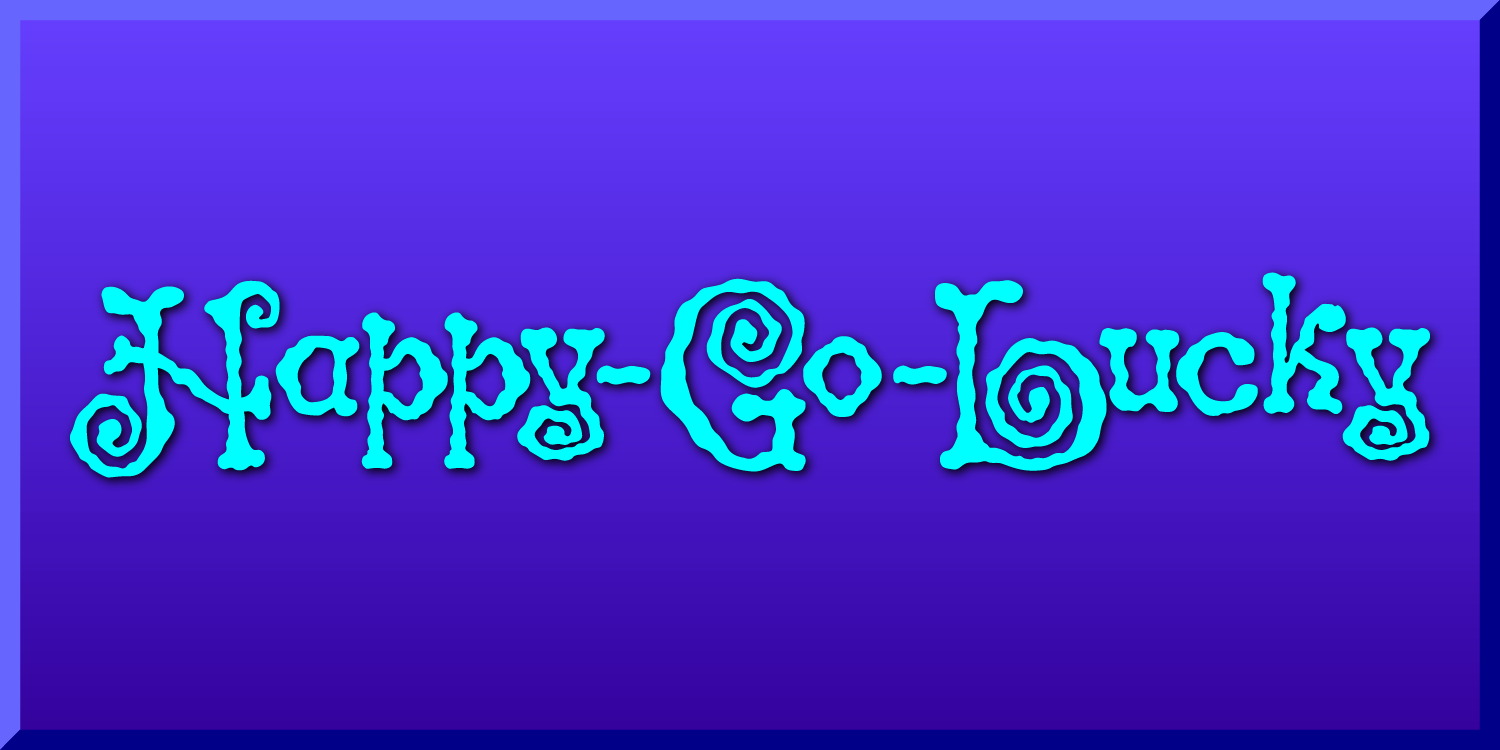
The Happy Go Lucky Font is incredibly versatile and perfect for infusing a sense of joy and playfulness into your designs. Imagine it bringing a vibrant energy to children's book illustrations, making birthday invitations pop, or adding a friendly touch to educational materials. It's also fantastic for creating cheerful social media graphics, engaging YouTube thumbnails, quirky product packaging, and delightful apparel designs. This font truly shines in any project aiming to evoke fun, creativity, and a lighthearted spirit, from craft projects to branding for whimsical businesses.
What makes Happy Go Lucky Font so exciting is its undeniable charm and optimistic vibe. It instantly communicates warmth and accessibility, making your content feel inviting and approachable. The rounded edges and bouncy feel give it a unique character that's both endearing and highly readable. It has a way of making text feel less like mere words and more like an expression of pure delight. This isn't just a font; it's a mood enhancer for your designs, ensuring they stand out with a cheerful and memorable personality.
The Happy Go Lucky Font family typically offers a range of styles to give you maximum creative freedom. While specific variations can differ, you can generally expect to find options like Regular, Bold, and possibly an Outline or Textured version. These variations allow you to play with different visual weights and effects, creating dynamic and engaging typography. The extensive family support ensures that whether you need a strong, playful statement or a subtle, friendly accent, Happy Go Lucky Font Free Download has the perfect style to bring your vision to life.